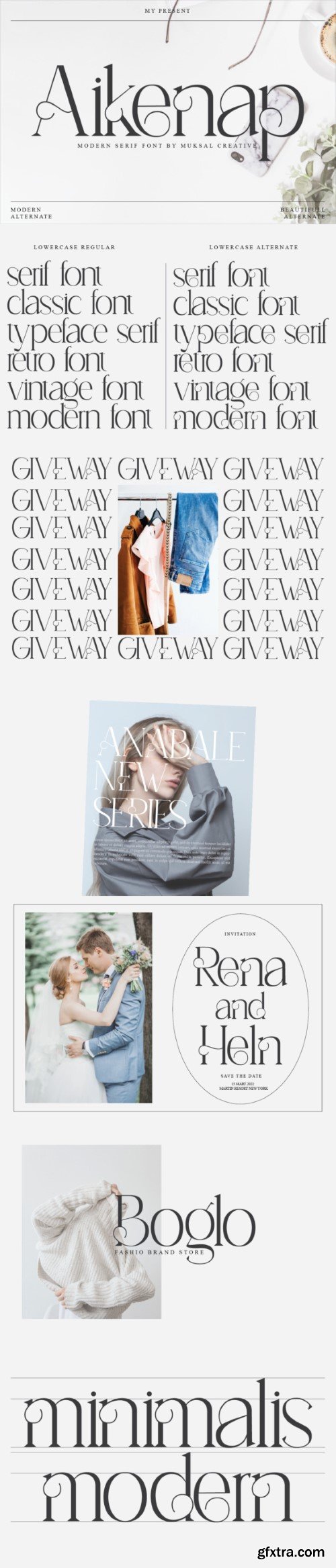
爱琴河字体
Aikenap Font
Aikenap Modern serif typeface with special glyphs, ornaments. It’s a very versatile font that works great in large and small sizes. Perfect for editorial projects, Logo design, Clothing Branding, product packaging, magazine headers, or simply as a stylish text overlay to any background image.